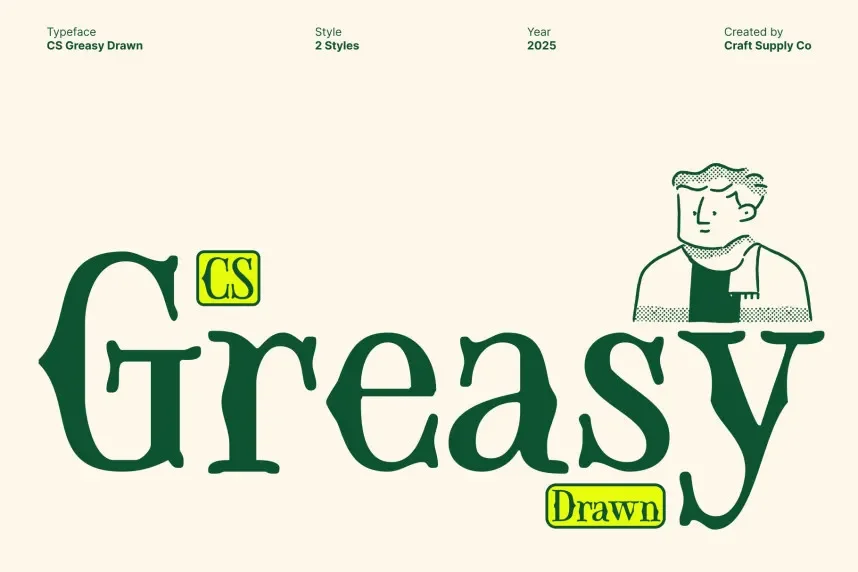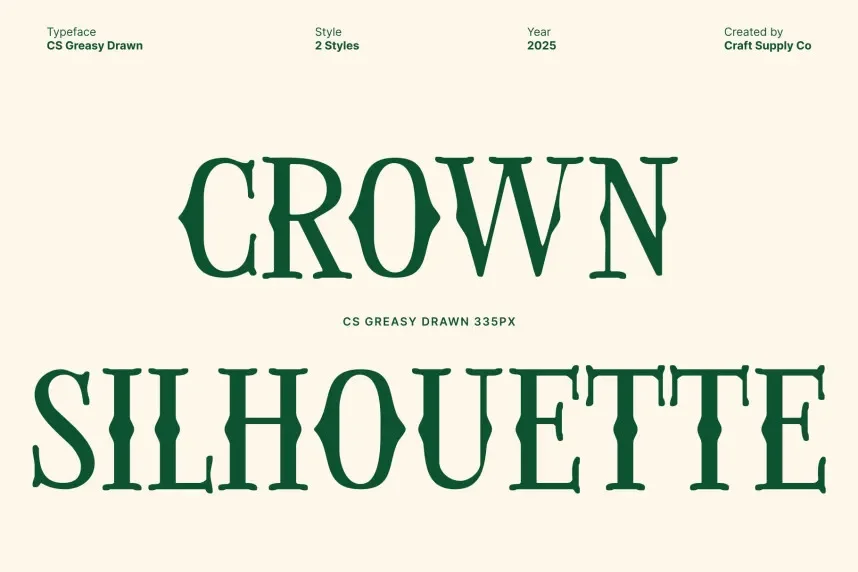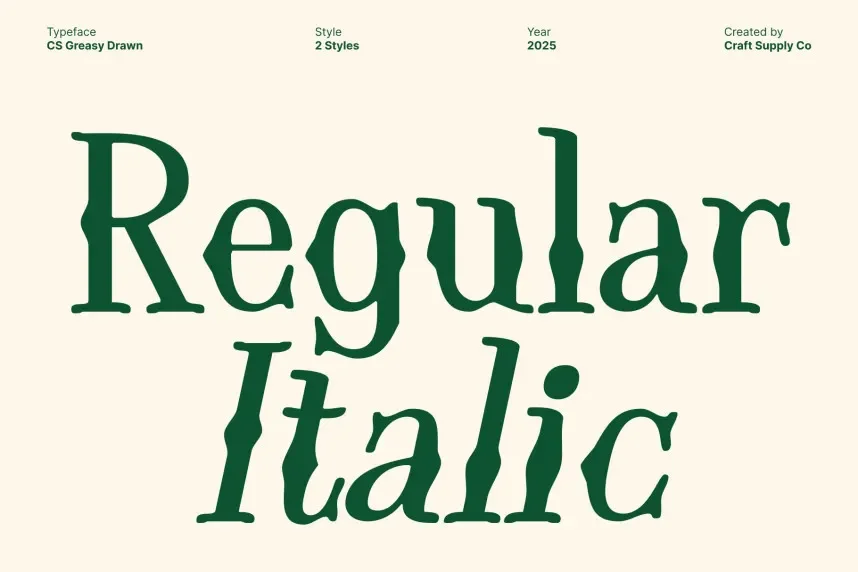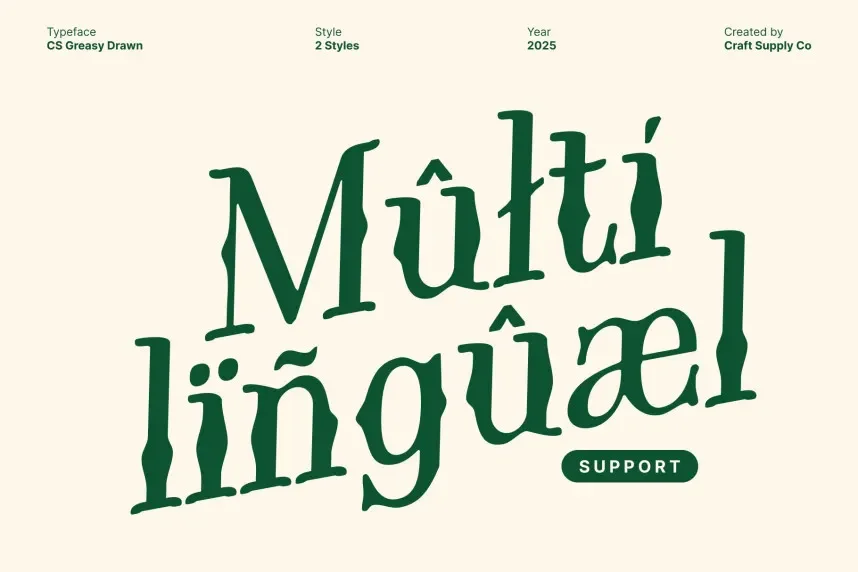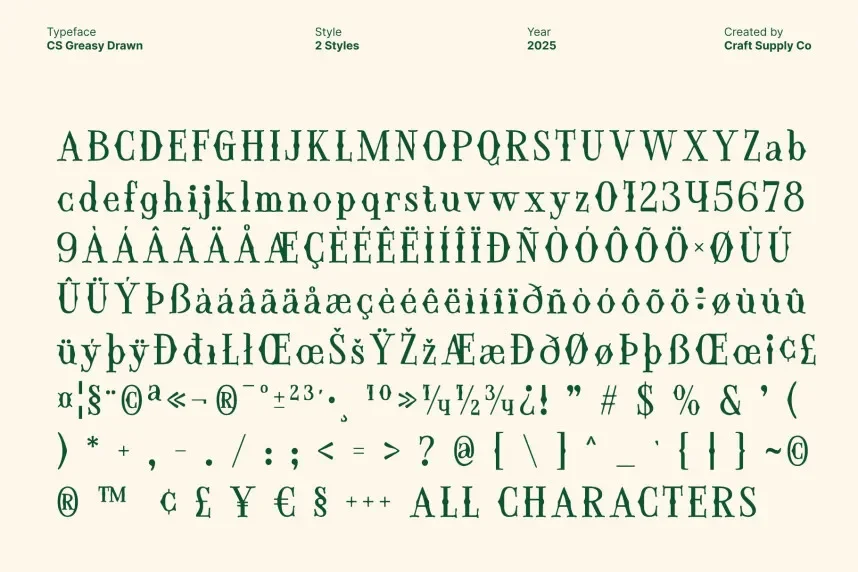
CS Greasy Drawn Font addresses the need for a rough, industrial-style font that brings a vintage feel to modern designs. It’s ideal for projects requiring a distressed, worn look without sacrificing legibility.
CS Greasy is a display font with jagged edges, uneven strokes, and textured letterforms. Its gritty, hand-drawn appearance makes it perfect for designs that aim for a retro or grunge aesthetic.